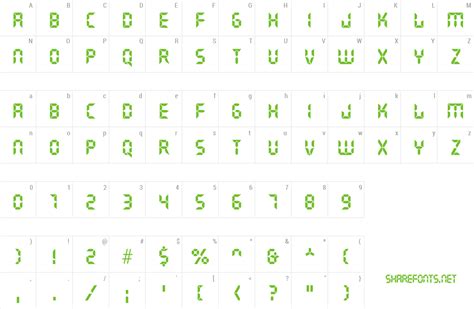
Transistor Font: A Deep Dive Into Pixelated Typography
Transistor Font: A Deep Dive into Pixelated Typography
Hey guys! Ever stumble upon a font that just screams “retro tech”? Chances are, you’ve encountered Transistor Font – a digital typeface that’s all about those iconic, blocky, and pixelated designs. It’s like a nostalgic trip back to the early days of computing, arcade games, and digital displays. If you’re a designer looking to add a touch of retro charm to your projects or just a curious enthusiast, you’re in the right place. We’re diving deep into the world of this fascinating font, exploring its history, characteristics, how to use it, and where to find it. So, buckle up, because we’re about to explore the pixelated world of Transistor Font !
What is Transistor Font? The Basics
So, what exactly is Transistor Font ? In essence, it’s a digital typeface designed to mimic the appearance of text displayed on early digital devices. Think of the old-school LED displays, the screens on vintage calculators, and the text on classic arcade games. The key feature? Its pixelated structure. Instead of smooth curves, letters are formed using a grid of individual pixels, creating a distinct, blocky aesthetic. These fonts typically have a very low resolution, which gives them a unique look and feel. The primary purpose of Transistor Font is to evoke a sense of nostalgia, technology, and retro vibes. It’s a visual cue that instantly transports the viewer back to a specific era. Therefore, you can often find this font used in projects that want to convey this impression.
The font itself is designed to be easily readable at various sizes, making it a versatile choice for different applications. Whether it’s a headline, a body of text, or a small caption, it retains its distinctive pixelated appearance. This readability is another reason why it’s a popular choice for digital interfaces, where clarity is paramount. Besides that, the font design also often includes variations such as bold, italic, and different weights. Therefore, this enables designers to customize the text’s appearance while maintaining its core aesthetic. In a nutshell, this font is a digital typeface that marries retro aesthetics with modern usability. It’s all about capturing the essence of early digital displays, making it a fantastic choice for projects that want to capture that feel. And the best part is that it is a versatile choice that can be used on various platforms.
The History and Inspiration Behind Transistor Font
The story of Transistor Font is closely linked to the evolution of digital technology and design. Its roots can be traced back to the advent of early computing and digital displays. In the 1970s and 1980s, when computers and electronic devices started to become more accessible, the limitations of display technology led to the development of pixelated fonts. These fonts were designed to be displayed on low-resolution screens, such as those found on early personal computers, arcade games, and digital watches. This includes Transistor Font .
The design of this font directly reflects the constraints of the technology of that time. The limited number of pixels available meant that characters had to be simple and easily distinguishable. The blocky, pixelated style emerged as a practical solution. It was a way to make text readable on these primitive displays. As technology improved and higher-resolution screens became common, pixelated fonts were gradually supplanted by smoother, more sophisticated typefaces. However, the retro aesthetic of these fonts never really died out. Instead, they experienced a resurgence in popularity. This coincided with a widespread fascination with retro culture and vintage technology.
The font’s revival is a response to the nostalgia for the visual style of early digital interfaces. Designers and enthusiasts have embraced it as a way to evoke feelings of nostalgia, tech, and the early days of computing. It’s not just a font; it’s a visual language that speaks to a specific time period. The inspiration is clear: the font is designed to be reminiscent of the alphanumeric displays of these vintage devices. Therefore, these fonts have evolved, with designers creating new versions. These versions capture the essence of the original while incorporating modern design principles. It’s a testament to the enduring appeal of retro aesthetics and the creativity of the design community. These fonts continue to inspire and add character to various projects, preserving a piece of digital history in the process.
Characteristics and Features of Transistor Font
Let’s get into the nitty-gritty of what makes Transistor Font tick, shall we? These fonts have distinct characteristics that set them apart from more traditional typefaces. At its core, the most defining feature is, of course, the pixelated structure. Characters are constructed using a grid of individual pixels or blocks, giving them a jagged, blocky appearance. This low-resolution design is what lends these fonts their unique retro appeal. The design is deliberately simple, prioritizing clarity and readability. The letterforms are often designed to be easily distinguishable, even at smaller sizes or in low-resolution environments. Straight lines, sharp angles, and geometric shapes are common, making the characters instantly recognizable.
Another important aspect is that the spacing and kerning are often carefully considered to ensure optimal readability. The design balances the pixelated nature of the font with its practicality. They ensure that letters don’t become too crowded or difficult to decipher. Some designs may include variations such as bold, italic, and different weights. This enables designers to add emphasis and visual interest to their text. However, the fundamental pixelated aesthetic remains consistent throughout all variations. Another characteristic of this font is the strong connection to technology and the digital world. This is especially true for projects that involve early computing, arcade games, and vintage electronics. Therefore, its design is suitable for that purpose.
Many of these fonts come with a complete set of characters, including letters, numbers, and symbols. Therefore, it provides designers with a comprehensive toolkit. This ensures that the font can be used across various projects. This feature enhances its versatility. All these features come together to create a font that is both visually striking and highly functional. It’s a typeface that instantly communicates a retro or tech-inspired aesthetic while remaining practical for use in digital and print designs. Whether you’re a designer looking to capture that specific look or a user simply appreciating its unique charm, the Transistor Font offers a distinctive and memorable visual experience.
How to Use Transistor Font in Your Designs
Alright, let’s talk about how you can actually incorporate Transistor Font into your designs to make them pop! This font can be a powerful tool when used correctly. One of the first things you should consider is choosing the right project. Because of its retro and tech-inspired aesthetic, the font is a great fit for projects that evoke a sense of nostalgia, technology, or vintage computing. Think of designs related to video games, software interfaces, tech blogs, or anything that draws inspiration from the 80s and 90s. When using this font, consider its size and placement. Because of its pixelated nature, it’s essential to ensure that the font is readable at the size you’re using. Larger sizes are great for headlines, titles, and logos. But for body text, you may need to use a slightly larger size or adjust the spacing to make sure the text remains clear.
Another important thing to consider is the color scheme. Colors can enhance the retro vibe of your design. Try using bold, contrasting colors such as bright reds, greens, blues, and yellows. These colors were commonly used in early digital displays and arcade games. They can help amplify the nostalgic effect. Pairing this font with other design elements is also important. Combine the font with other retro elements. This can be vintage illustrations, geometric shapes, or glitch effects, to create a cohesive and visually appealing design. You could also experiment with layering and effects to achieve a unique look. For example, you can add a slight shadow, glow, or texture to the text to give it more depth.
Always ensure that there’s a good contrast between the font and the background to make it easier to read. Avoid using it on busy backgrounds. The font should be the focal point. Finally, don’t be afraid to experiment. Experiment with different weights, styles, and sizes to find the perfect fit for your project. The beauty of this font lies in its versatility. It can be adapted to suit various design needs. By using these tips, you’ll be able to create designs that are visually striking, memorable, and full of retro charm. So go out there, get creative, and let the Transistor Font transport your audience back to a simpler, pixelated time!
Where to Find and Download Transistor Font
So, you’re ready to get your hands on a Transistor Font ? Fantastic! Luckily, there are plenty of resources where you can find and download these pixelated gems. When searching for fonts, a good starting point is font websites. Popular platforms such as Google Fonts, DaFont, and Font Squirrel have extensive libraries. You’ll find a wide variety of free and premium options. These sites allow you to browse by style, tags, and licenses. This makes it easier to find the perfect pixelated typeface for your project. Be sure to check the license terms before downloading. Some fonts are free for personal use but require a commercial license for professional projects.
Another way to find fonts is by searching for specific keywords related to the style you’re looking for. Search for terms such as “pixel font”, “8-bit font”, “retro font”, or “monospaced font”. You will see a lot of related options. When you find a font you like, check its character set. Make sure it includes the characters you need for your project. Some fonts come with only a limited set of characters, while others offer a full range of letters, numbers, and symbols. If you’re a designer, consider checking out font foundries or marketplaces. They often offer high-quality, professionally designed fonts with advanced features. For instance, these include different weights, stylistic sets, and OpenType features. This can significantly enhance the versatility and visual appeal of your design.
Once you have found your font, downloading and installing it is usually a simple process. Make sure to follow the instructions provided by the font website or the developer. After installation, the font should be available in most design software. This includes programs like Adobe Photoshop, Illustrator, and Canva. Remember to always respect the licensing terms of the font you choose. By doing so, you can ensure that you’re using it legally and ethically. With a little bit of searching, you’ll have no problem finding the perfect font to add a touch of pixelated magic to your designs!
Transistor Font Alternatives and Similar Fonts
While Transistor Font has its unique charm, it’s always good to explore alternatives. When looking for alternatives or similar fonts, there are many options. One popular option is 8-bit or pixel fonts. These fonts are designed with a grid of pixels. This gives them a similar retro and pixelated aesthetic. They are ideal for projects that want to evoke a nostalgic feel or the look of early video games.
Another option to consider is monospaced fonts. These fonts have each character occupying the same amount of horizontal space. They often have a simple, clean design that is easy to read. These are great for coding, technical documents, and interfaces. For those looking for fonts with a more technological feel, consider futuristic fonts. These are designed to give a modern, tech-inspired appearance. They often feature clean lines and geometric shapes. They are great for projects that want to convey innovation and modernity. There are also fonts designed to mimic the appearance of digital displays. These fonts are made to imitate the look of LED displays, calculators, and other digital devices. They are great for projects that aim to evoke a sense of digital technology and retro aesthetics.
When choosing an alternative, consider the project’s purpose and target audience. The goal is to choose a font that best complements the overall design. By exploring these alternatives, you’ll be able to create unique and visually appealing designs. This will allow you to explore different design options. It will also help you create visually unique designs. Explore the different options and experiment to find the perfect font for your project. Remember, the goal is to make a font that effectively communicates your message while capturing the desired aesthetic. Finding the right font can significantly enhance the visual impact of your design.
Conclusion: Embrace the Pixelated Charm
Alright, folks, we’ve journeyed through the pixelated world of Transistor Font . We have uncovered its history, its unique characteristics, and its practical applications. We’ve explored how to use it effectively in your designs. So, what have we learned? The font isn’t just a typeface; it’s a nostalgic trip. It’s a tribute to the early days of computing, arcade games, and digital technology. Therefore, it has become a go-to choice for designers and enthusiasts alike.
It’s a versatile choice that can add a retro touch to a variety of projects. Whether you’re designing a website, creating a video game interface, or simply adding a vintage flair to your project, the font can make a big difference. The key is to understand its characteristics and apply it thoughtfully. With the font, you can capture that unmistakable retro aesthetic. It’s a way to connect with your audience on a deeper level. It will trigger a sense of nostalgia for those who remember the early days of technology. For those who are new to it, it offers a fascinating glimpse into a visual language. Therefore, the font is something that is still relevant today.
So, if you’re a designer looking to add a bit of retro charm to your projects, or if you’re a fan of all things vintage, embrace the pixelated charm of the font. Explore the various options, experiment with different styles, and create designs that transport your audience back in time. With its unique aesthetic, versatility, and enduring appeal, the font is sure to become a valuable tool in your design arsenal. Get out there, have fun, and let your designs shine with pixelated glory!